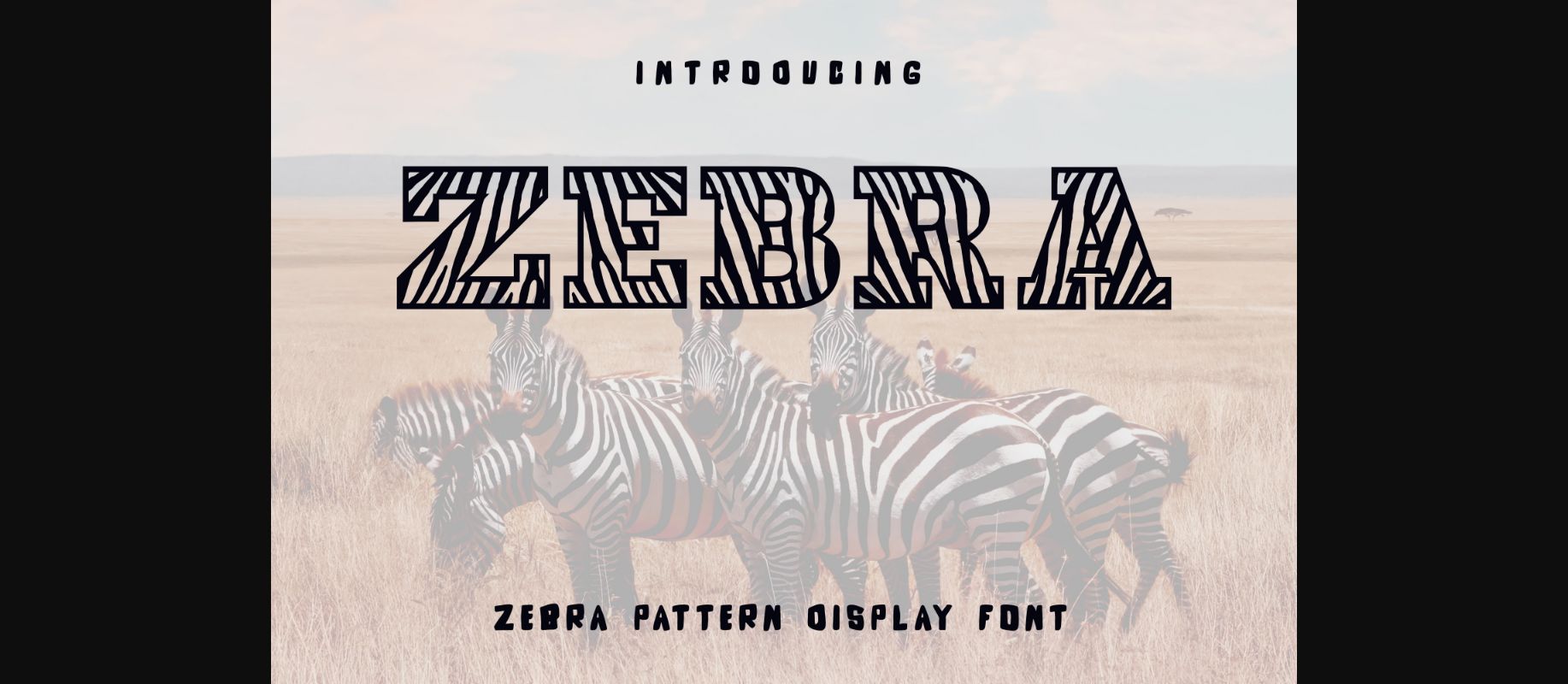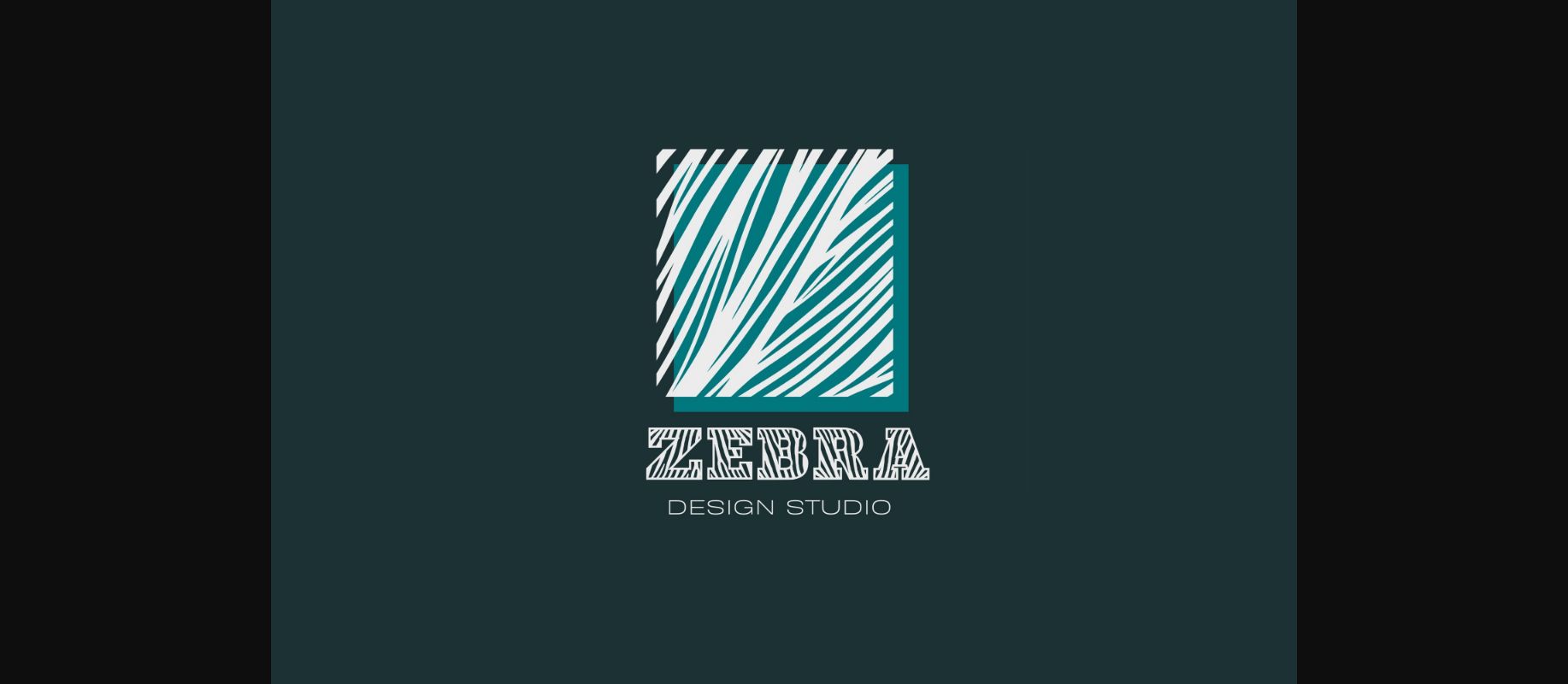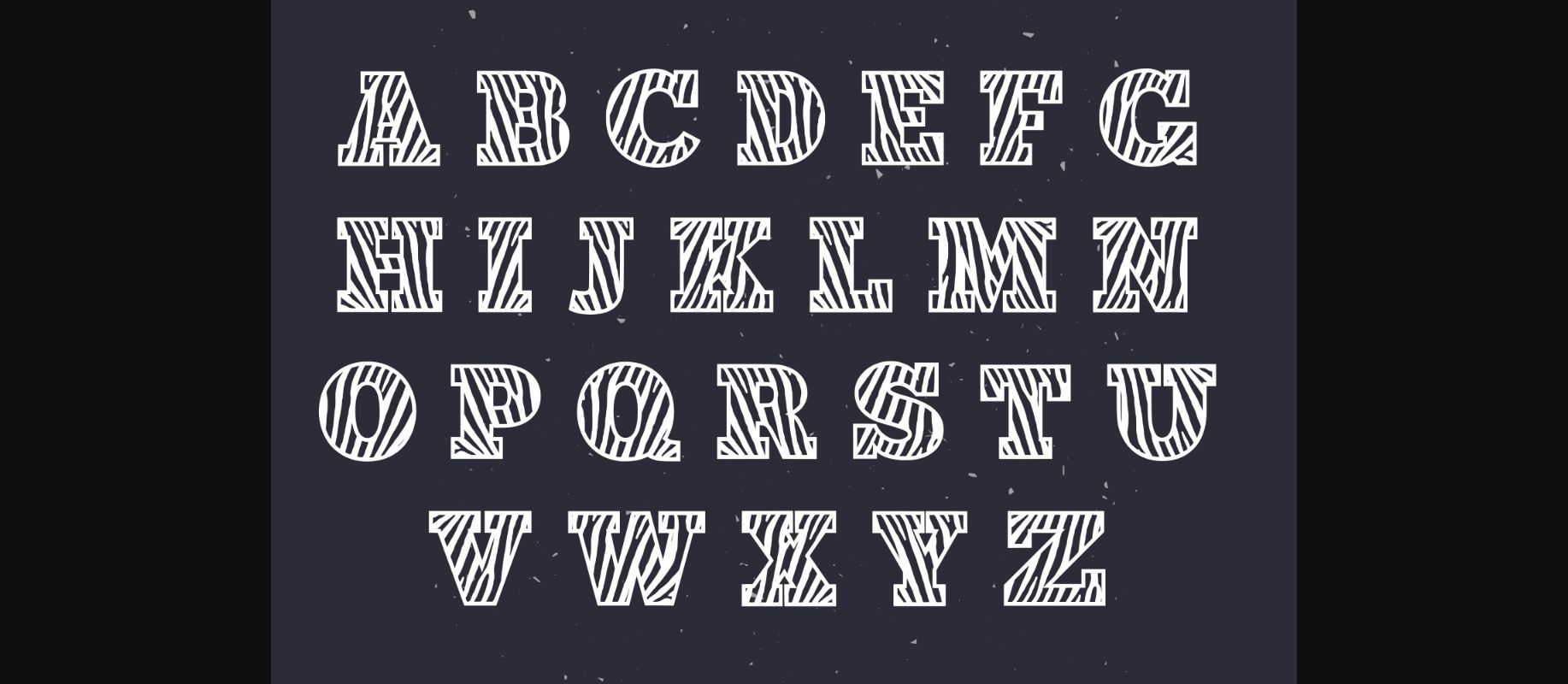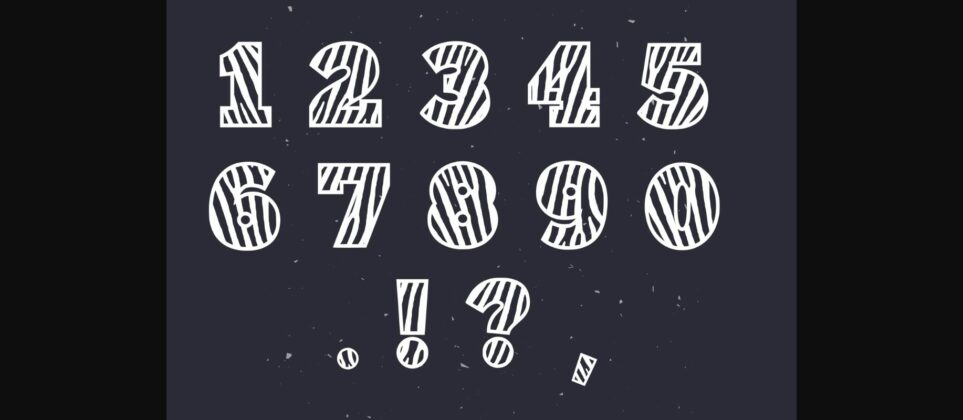
Zebra Font
About Zebra Font
Zebra is a cool and unique zebra patterned decorative font. It is perfect for kids projects, classrooms decorations, stickers designs and more. Add it confidently to your favorite creations and let yourself be amazed by the outcome generated.